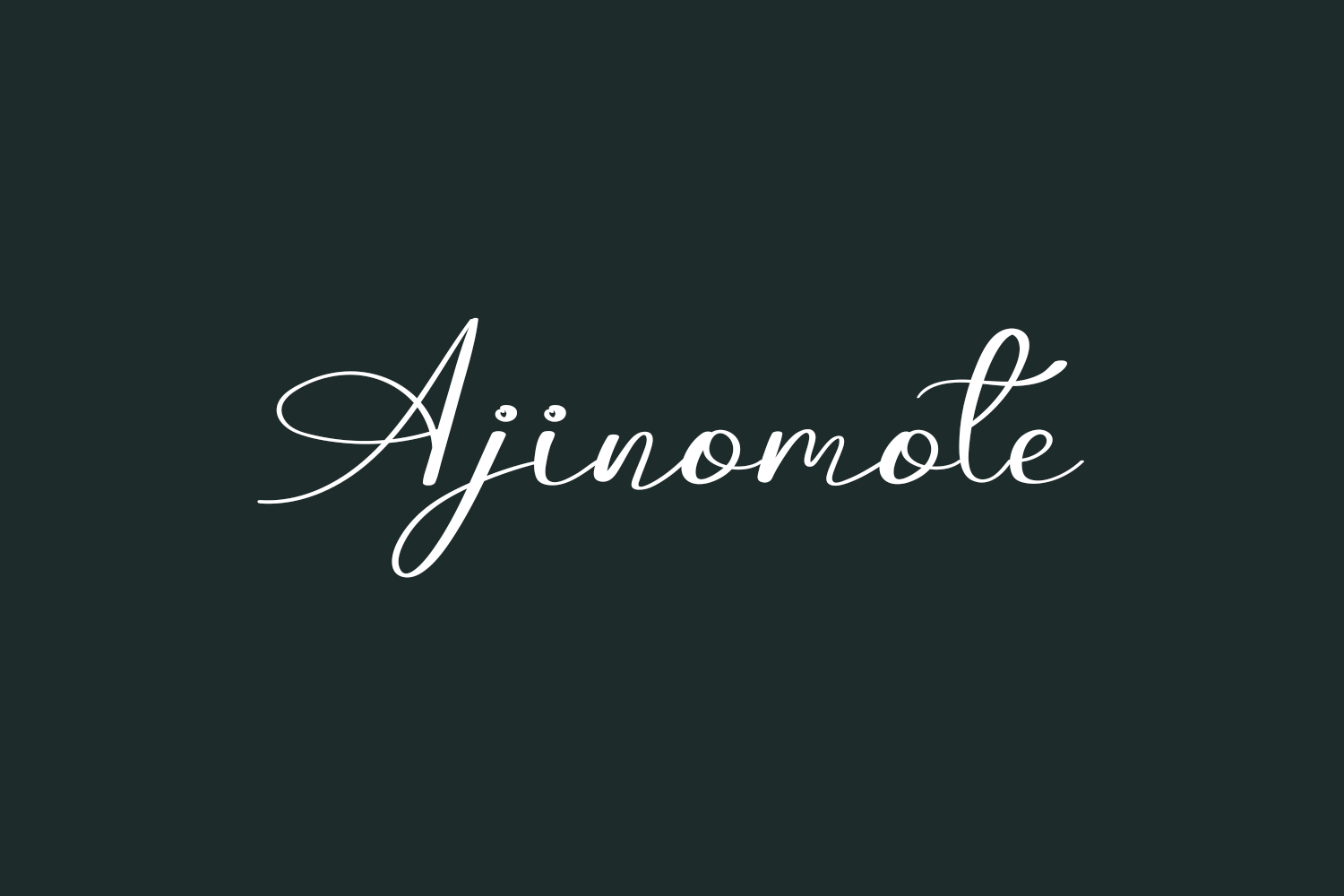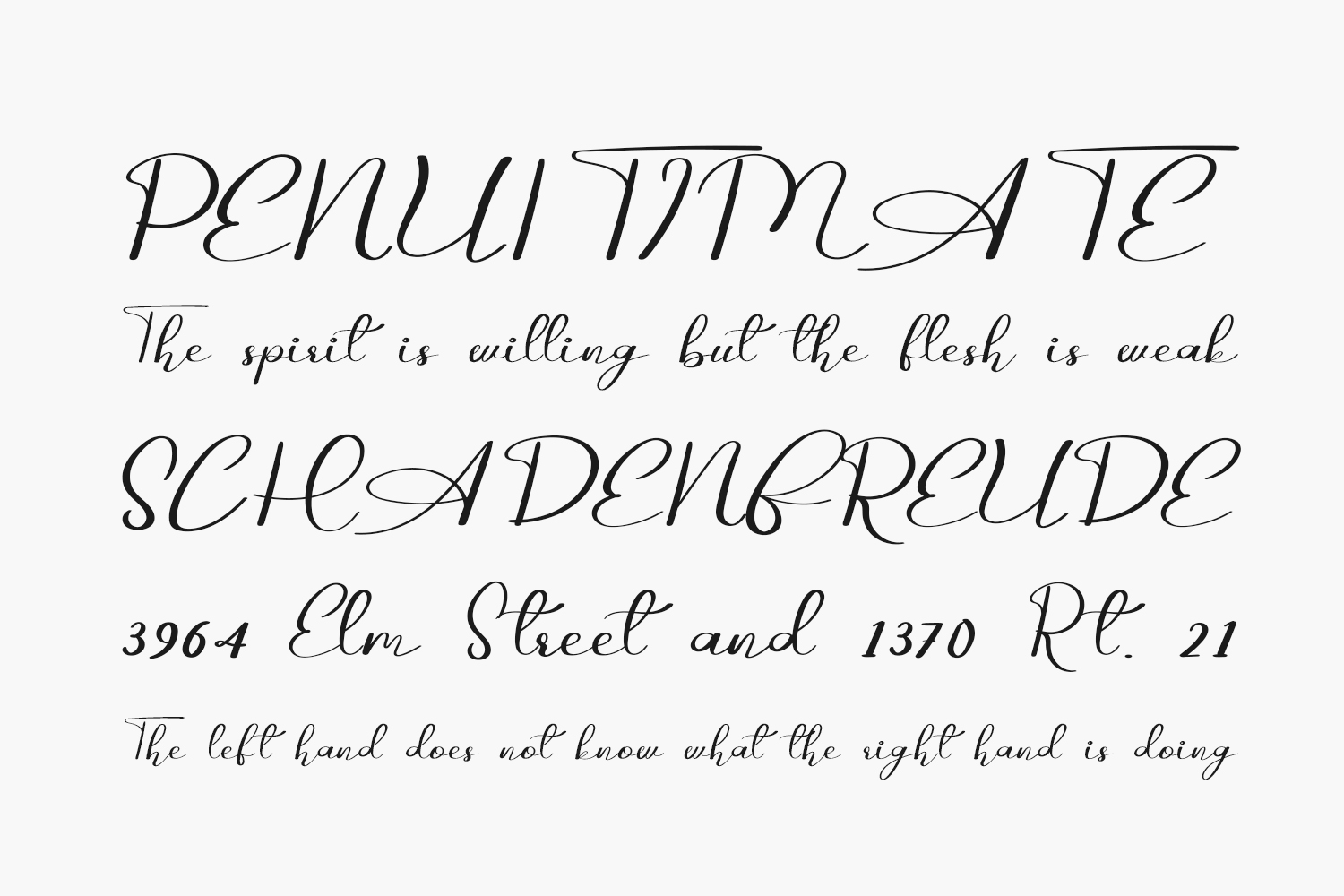
Ajinomote Free Font is a neat and pretty handwritten font. It has nicely curved letters and a cursive flow that can enhance the look of any creation. Ajinomote Free Font was designed by Erik Studio and is free for personal use only. Please purchase the full version for commercial use.